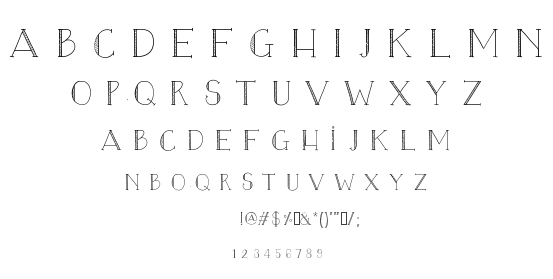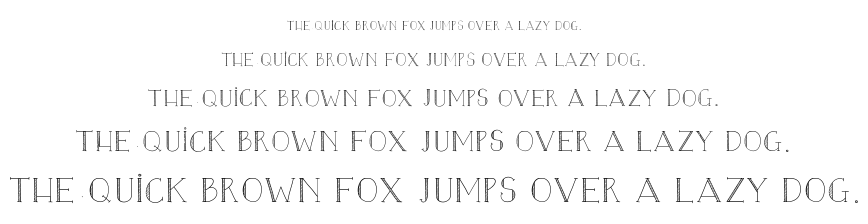
An elegant handwritten display typeface design. I was inspired by the characters of the amazing cartoon from late 80’s while coming up with the name of the typeface, the ones who used to watch will definitely remember 🙂